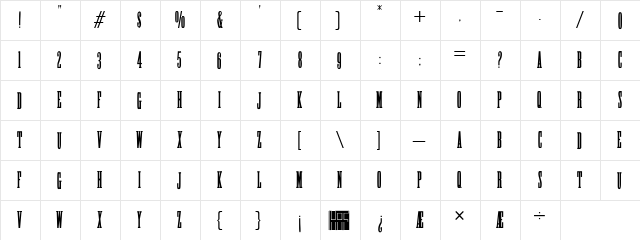
HFF High Tension Regular
| Foundry | Have Fun with Fonts |
| Designer | Have Fun with Fonts |
| Year | 2010 |
Design Context for HFF High Tension Typeface
HFF High Tension is a composed and adaptable typeface that performs quietly and consistently across a wide range of design contexts.